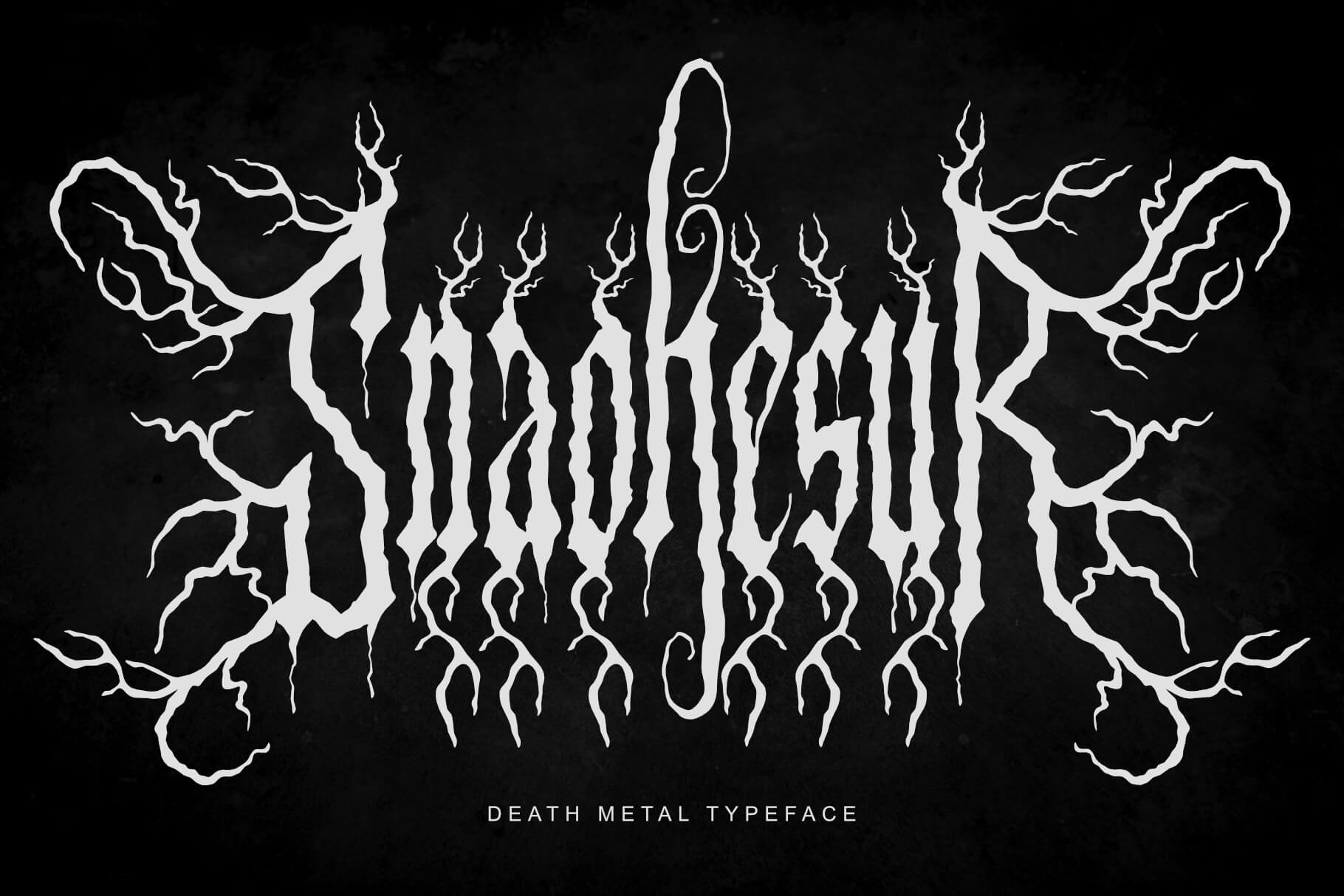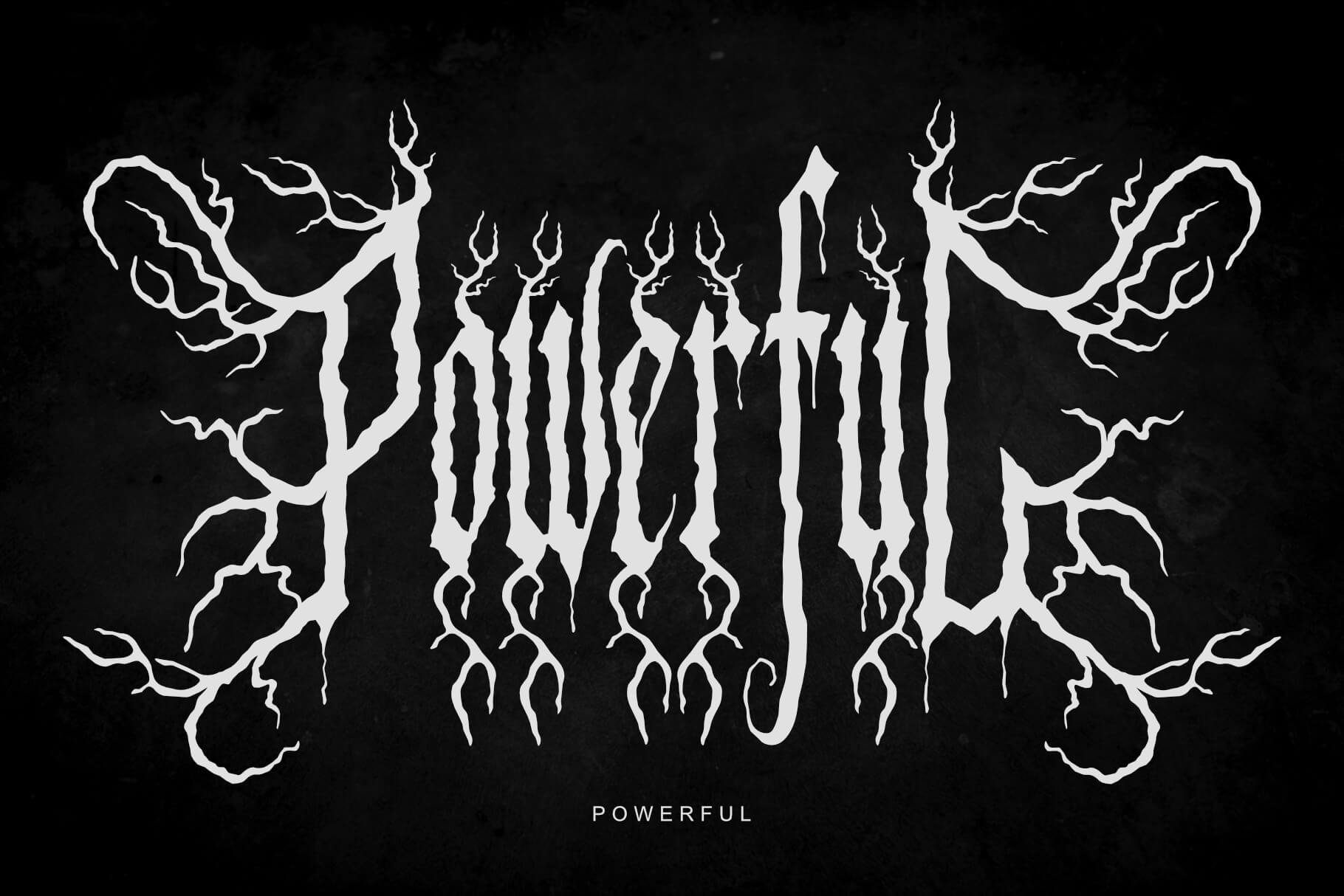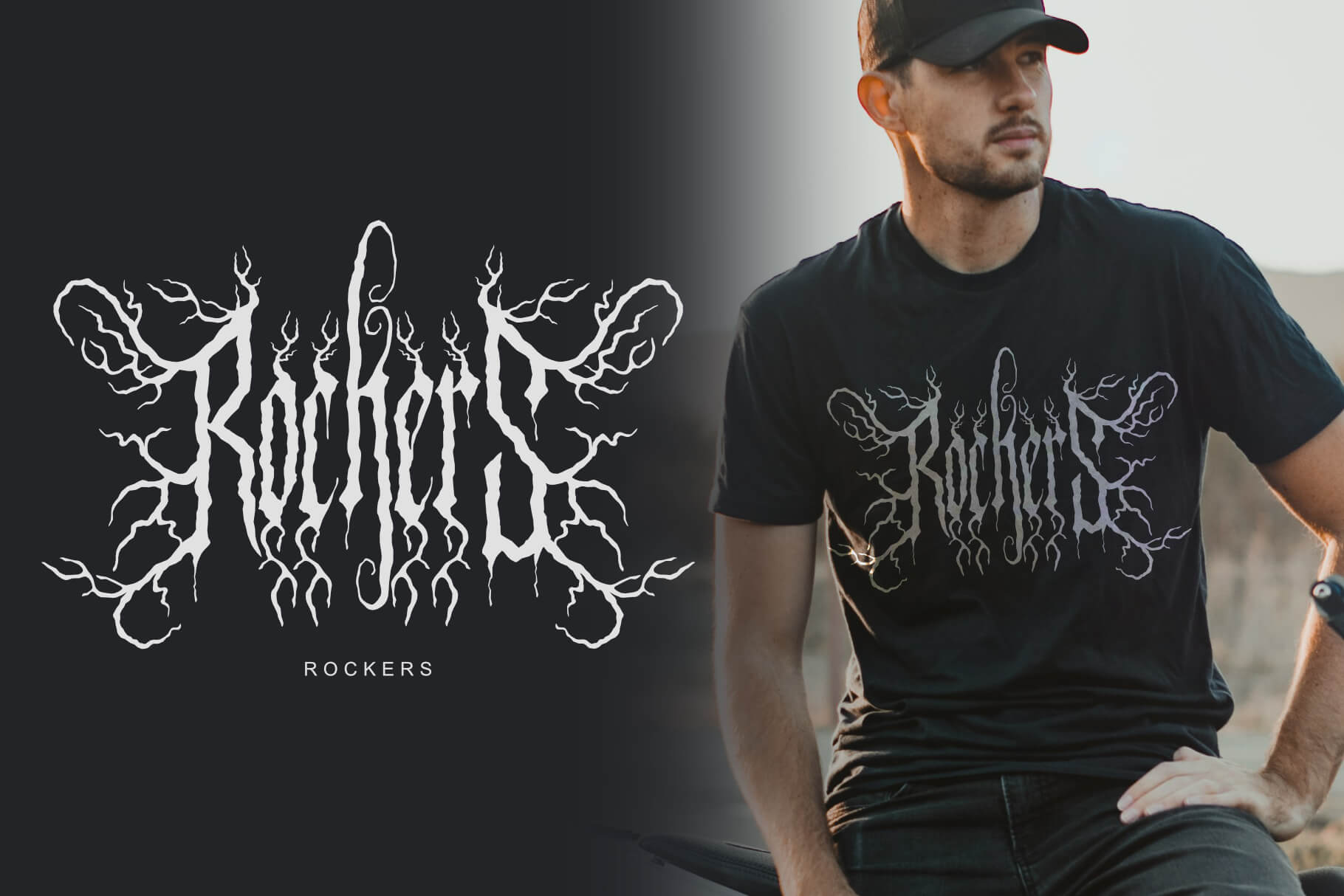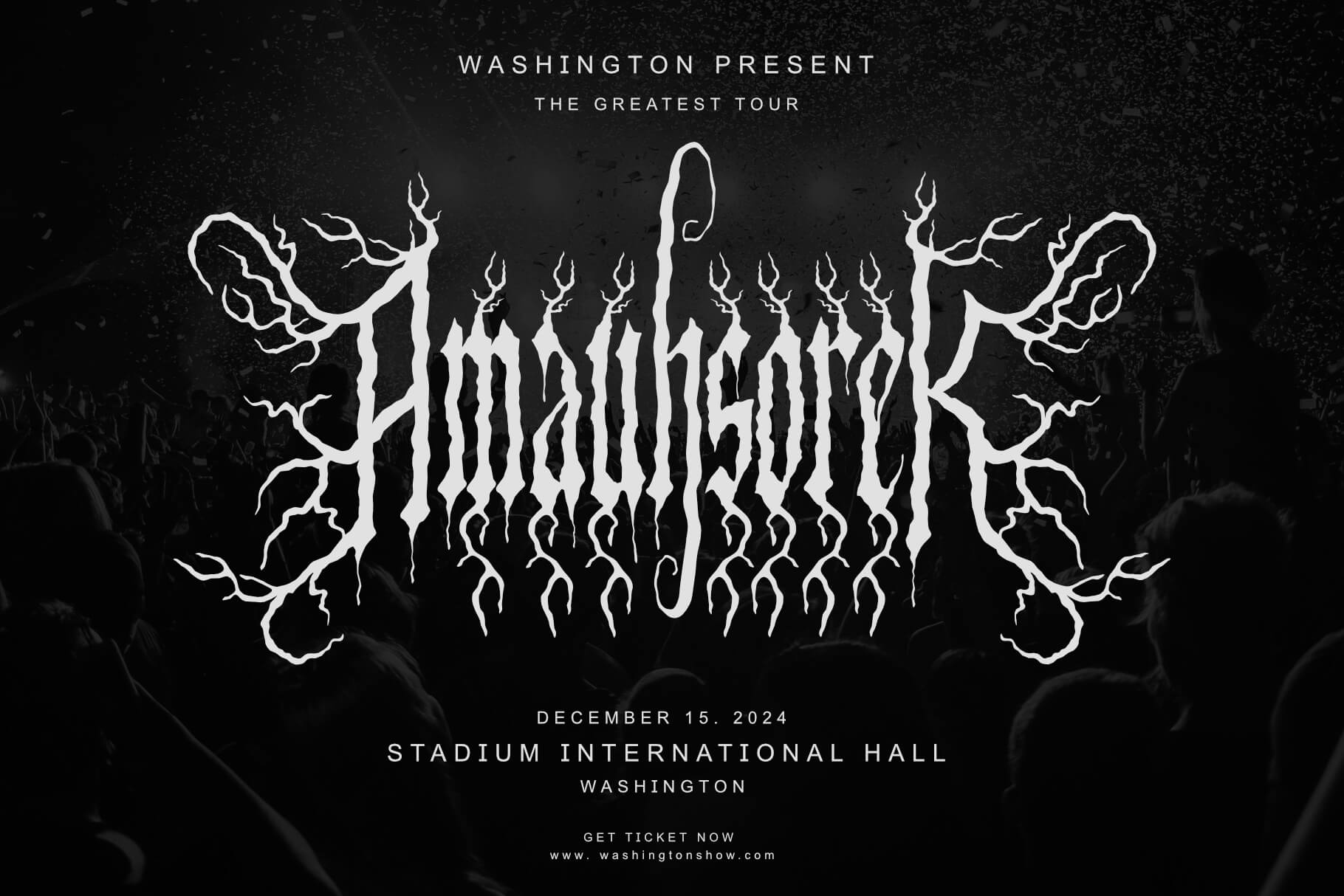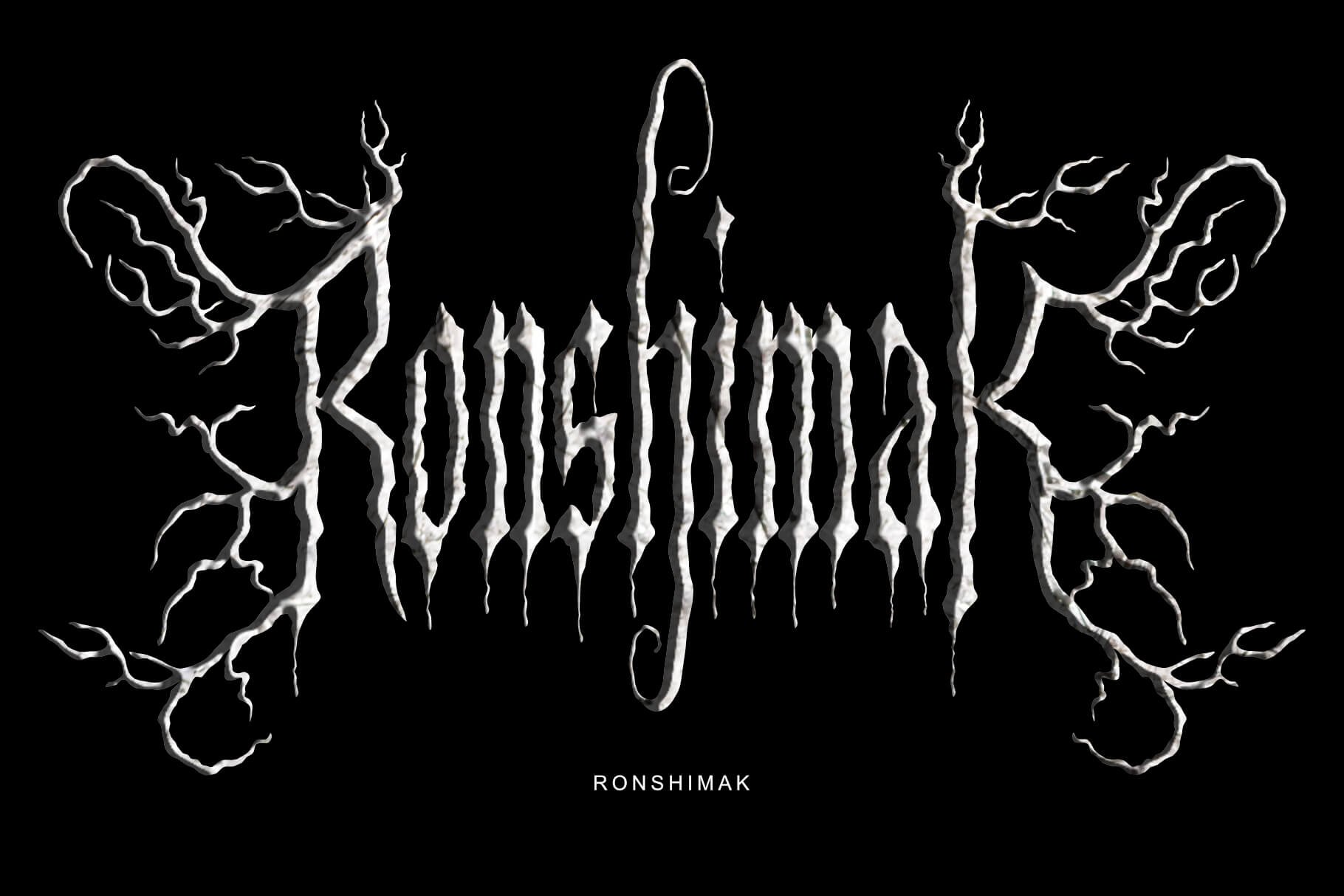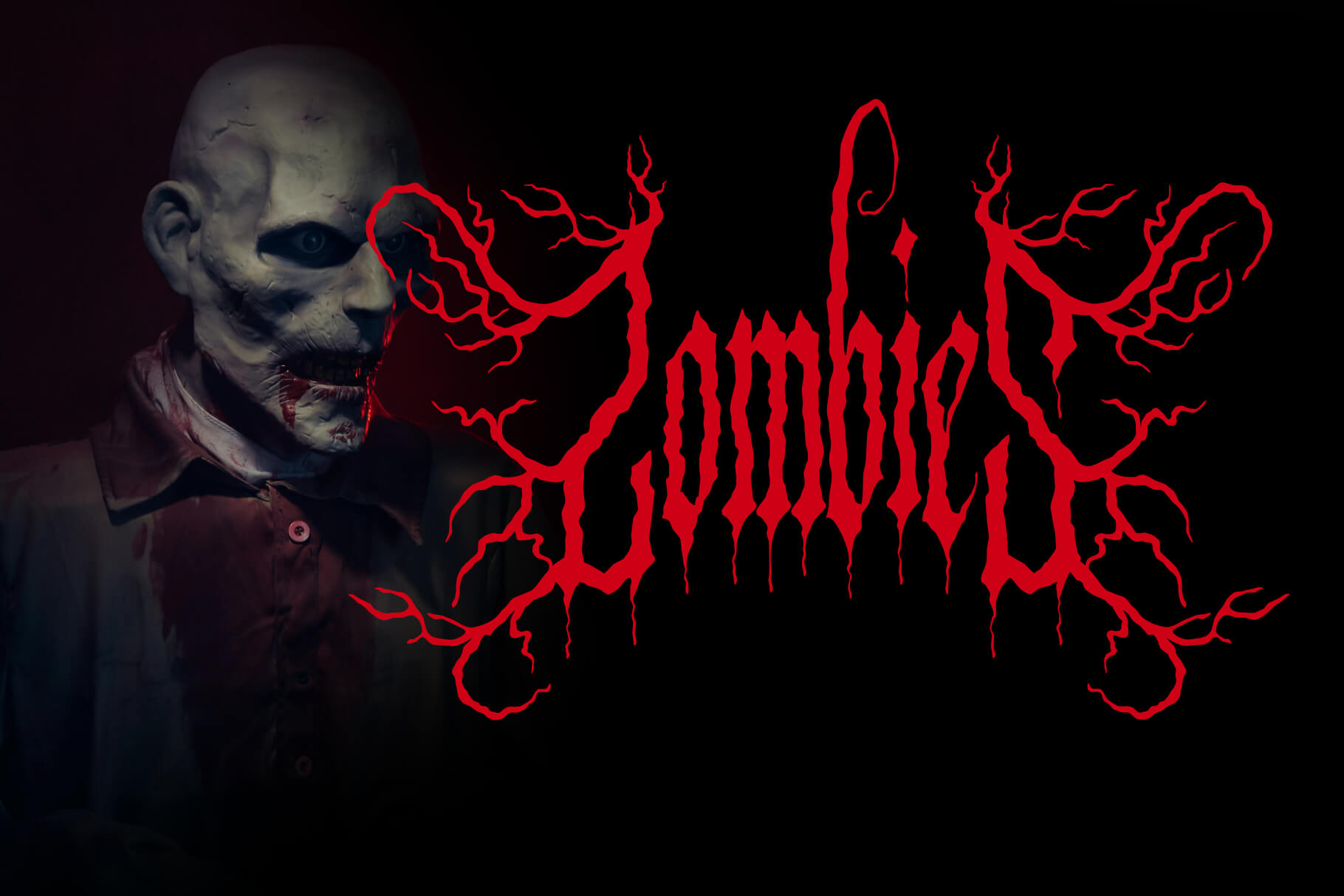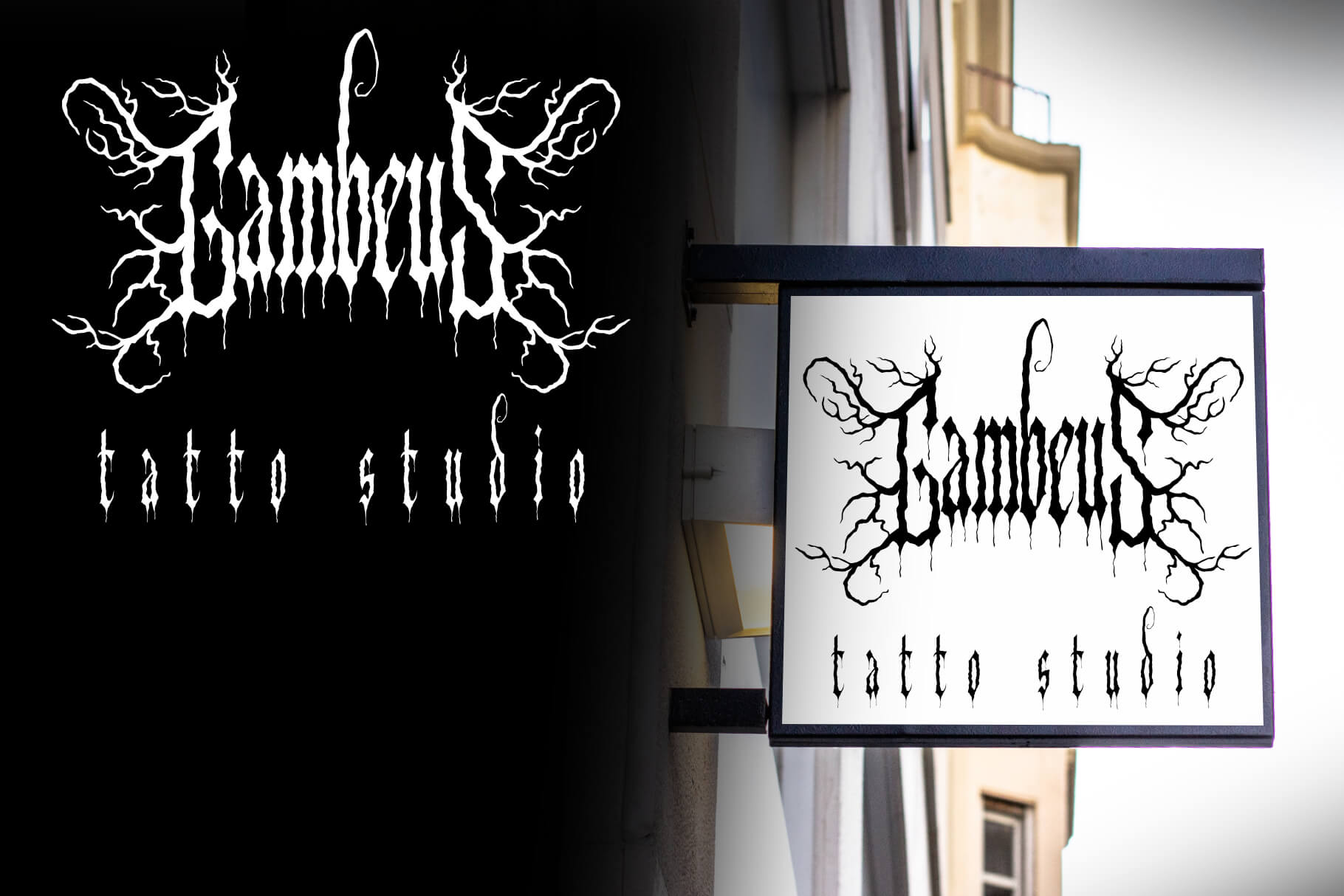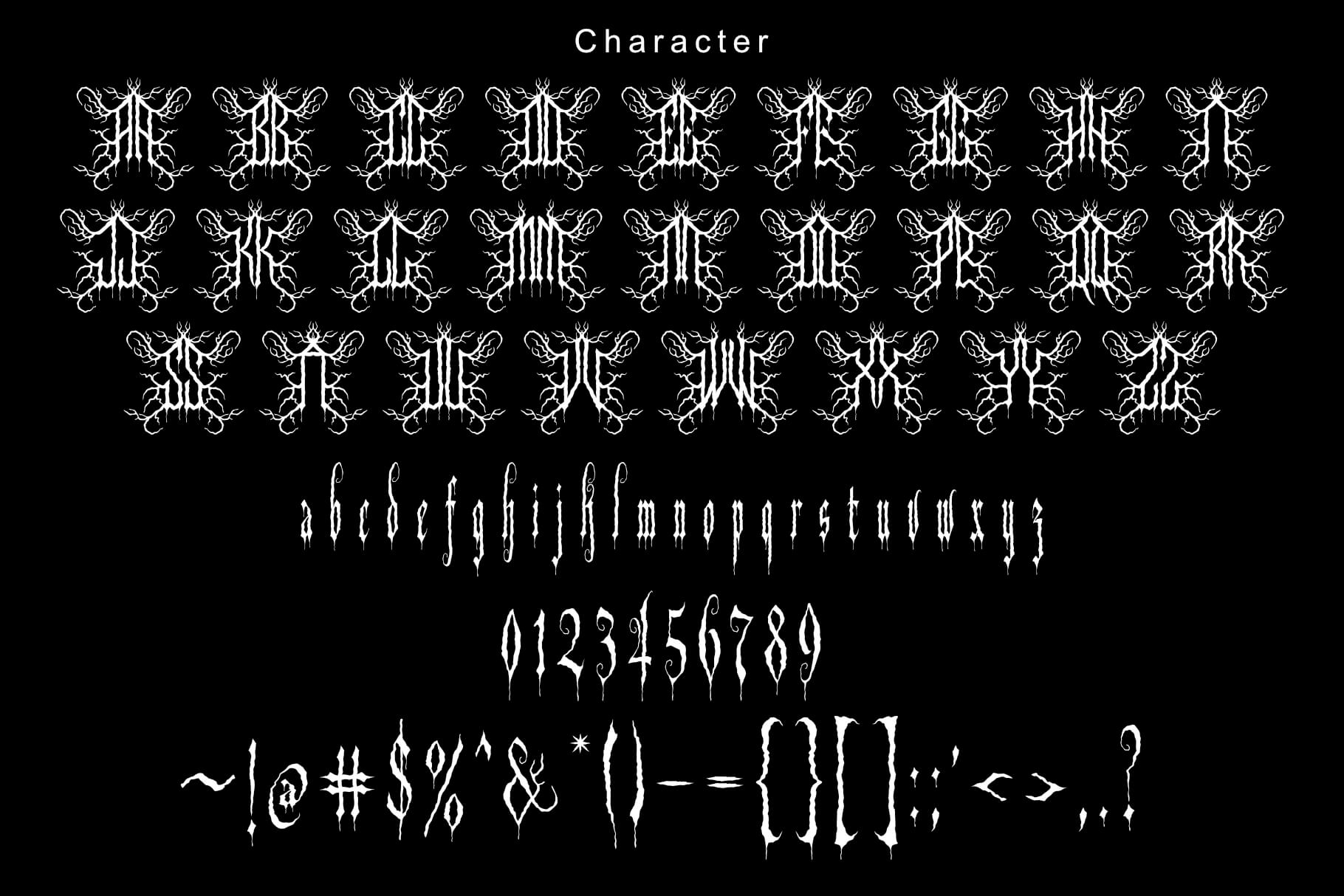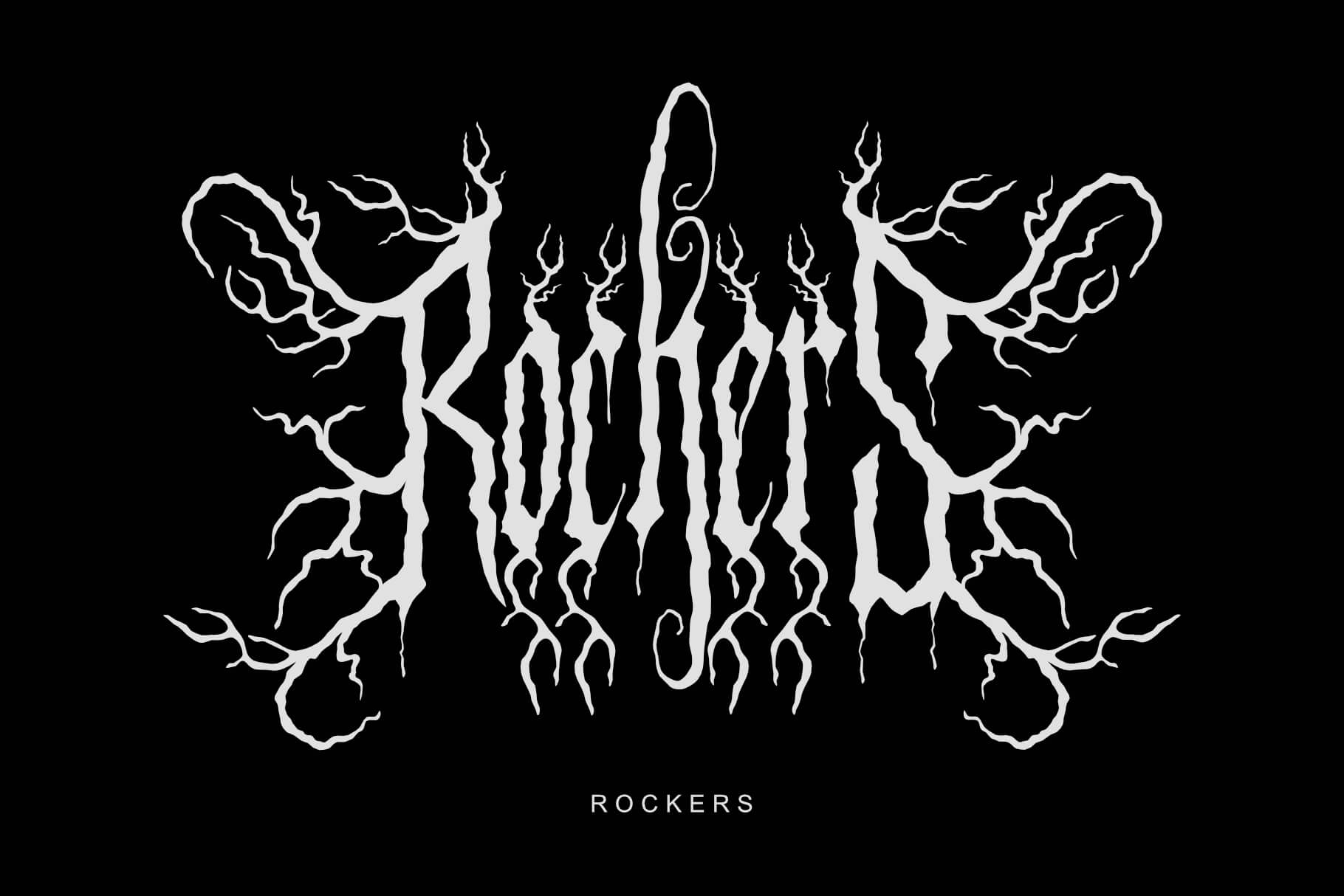
Introducing the “Snaokesur Death Metal Typeface” – where the raw power of brutalism meets the modern edge of dead metal aesthetics. Unleash the untamed spirit of your designs with this bold font that exudes strength and attitude.
Crafted for those who dare to be different, this typeface represents fearless creativity. With 303 meticulously designed glyphs, the “Snaokesur Death Metal Typeface” provides a comprehensive set for your typographic adventures. Explore endless possibilities with included alternatives, allowing you to customize your text with a unique flair.
Perfect for projects that require an unconventional and daring approach, this font’s distinctive personality shines. Whether you’re designing album covers, posters, branding, or anything that demands a bold statement, the “Snaokesur Death Metal Typeface” is up to the task.
Embrace the rebellious spirit of dead metal while enjoying the ease of use and versatility this typeface offers. Its multilingual support expands the horizons of your creativity, making it a global tool for expression.
Unleash the brutal beauty of “Snaokesur Death Metal Typeface” and let your designs scream with individuality. Elevate your projects with a font that challenges norms and breaks free from conventional typography boundaries.